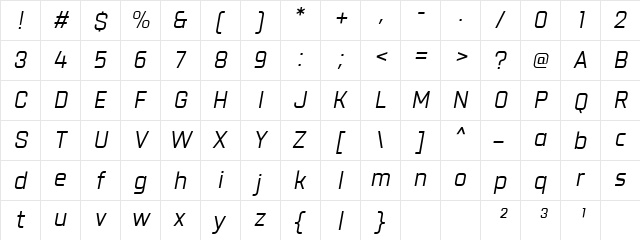
Revx Neue Demo Italic
Design Context for Revx Neue Demo Typeface
Revx Neue Demo is a composed and adaptable typeface that performs quietly and consistently across a wide range of design contexts. The slanted form adds forward momentum and visual energy.
Pro Tip: Try Revx Neue Demo for annotation and caption copy alongside an upright companion — the contrast in angle creates a dynamic but ordered typographic system.